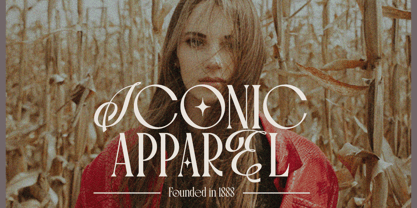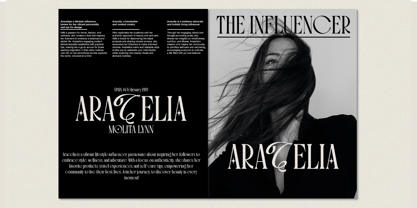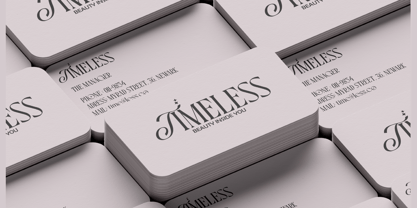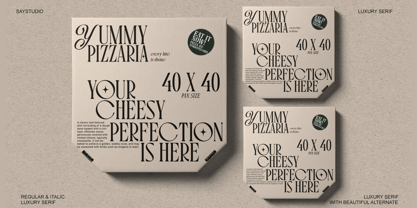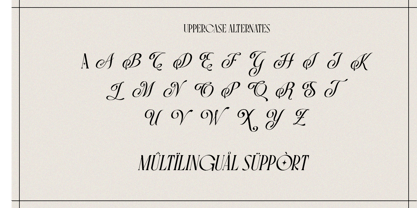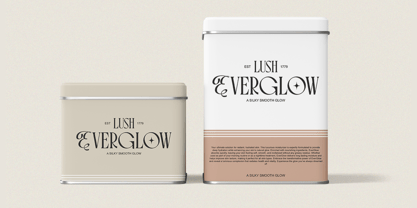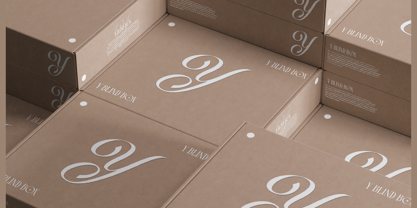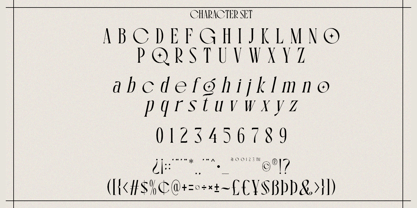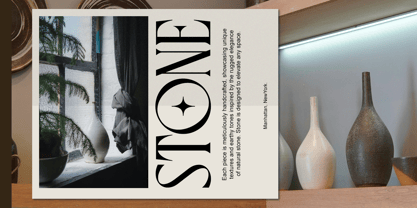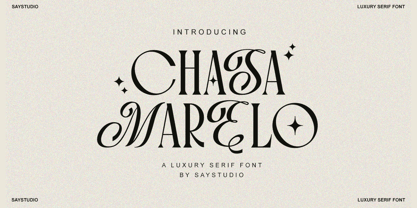
Chasa Marelo
The Chasa Marelo Font Family was designed by Mussyayin and published by Say Studio. Chasa Marelo contains 2 styles and family package options. More about this family
Chasa Marelo is a brand new, Luxury Serif Font. The main font is a serif, which in regular and alternates uppercase looks cool, chic & fashionably elegant. It also includes beautiful uppercase alternates, full language support, punctuation and numerals. I invite you to check out the preview images and hope you will be immersed in my vision for Chasa Marelo, a luxury serif typefont that beautifully balances classic charm and beautiful innovation, making it your new go-to choice for all the interesting projects you might be working on this year. What’s Included : - Chasa Marelo Regular - Chasa Marelo Italic - Multi Language - Alternates - Standart Glyphs - Symbols and Number - Works on PC & Mac Simple installations Hope you enjoy our new font! If you have any questions, please don't hesitate to call me :-) Thanks, Have a Great Day! Say Studio